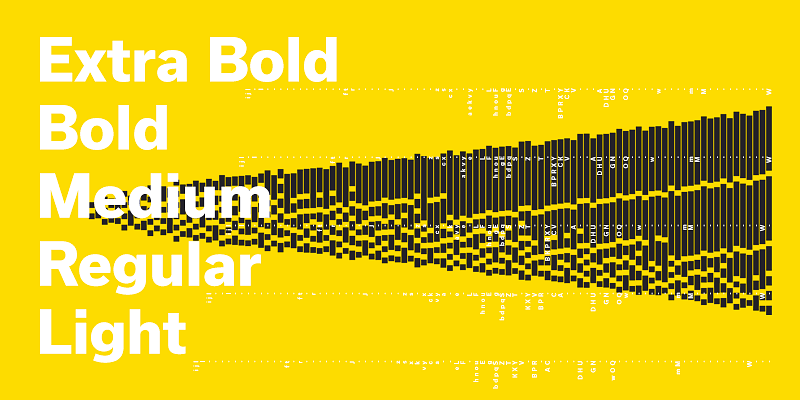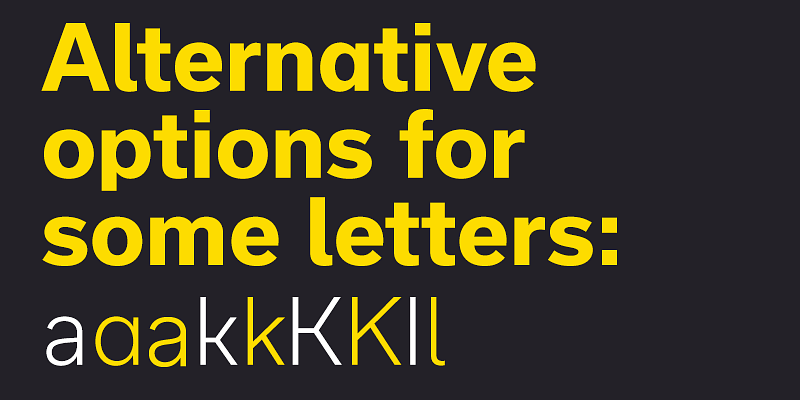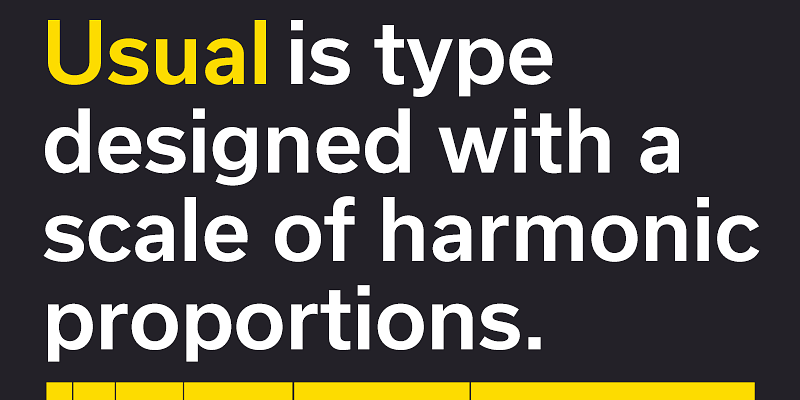
Usual is a utilitarian typeface with modernist inspiration, suitable for whenever typographic sobriety and neutrality is needed.
Rui Abreu is a Portuguese type and graphic designer. He studied Graphic Design at FBAUP (Faculdade de Belas Artes da Universidade do Porto), where he graduated in 2003.
In parallel with his interactive media designer job, Rui Abreu has been working on commercial fonts since 2006.